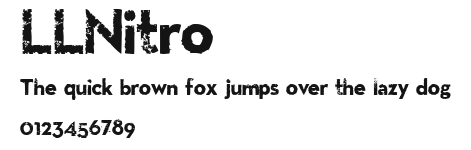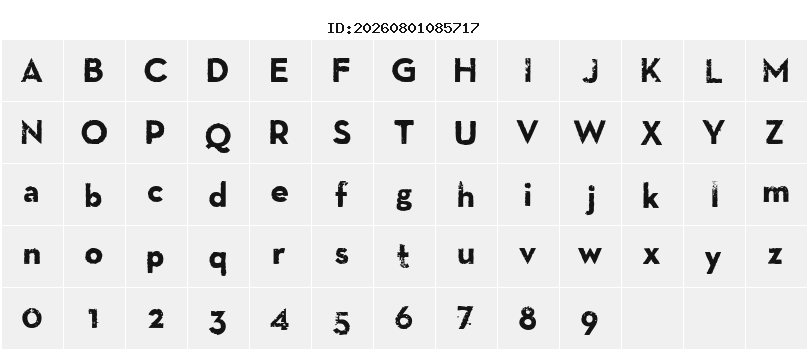
• Font Name: LLNitro
• Full Font Name: LLNitro
• PostScript Name: LLNitro
• Manufacturer: Markus Schroeppel
About LLNitro.ttf
LLNitro.ttf is a modern, elegant sans-serif font designed for ultimate readability and visual harmony. Perfect for branding, headlines, web design, and print materials.